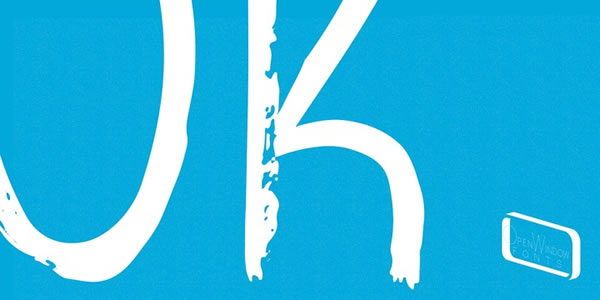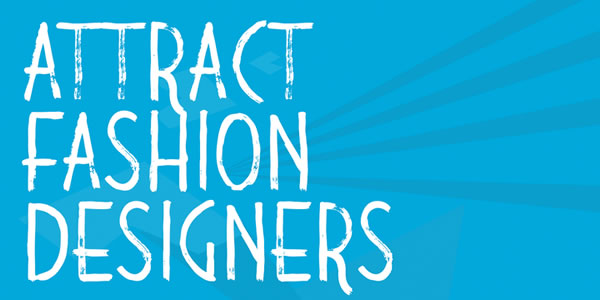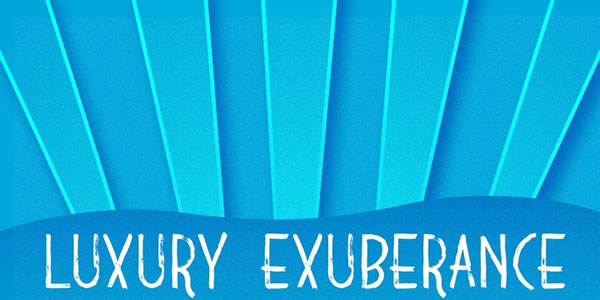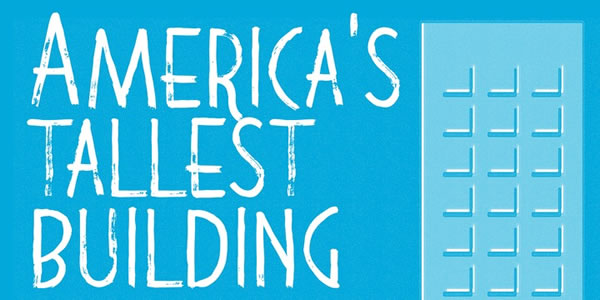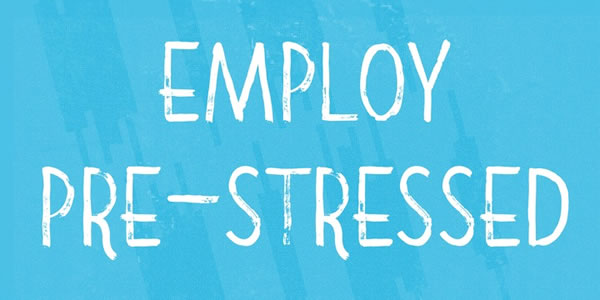
Introduction to Skyline Hotel Font Font
Fonts play a crucial role in design, and the Skyline Hotel Font font is a typeface that brings both character and versatility to any project. Whether you’re working on a branding project, a website, or a print design, the Skyline Hotel Font font offers a unique style that can elevate your work.
Skyline Hotel is a brand new hand painted font from Dathan Boardman of Open Window.
It utilizes Art Deco structures but is greatly amplified by organic paint brush strokes The font would be best used in designs that require an organic degraded look and feel.
Key Features of Skyline Hotel Font Font
Why Choose Skyline Hotel Font Font?
The Skyline Hotel Font font is more than just a typeface – it’s a design tool that helps you communicate your message with style and clarity. Its unique character set and versatile design make it suitable for a wide range of applications, from elegant invitations to bold headlines.
With its carefully crafted letterforms and balanced proportions, the Skyline Hotel Font font ensures readability and visual appeal across all mediums.
What makes Skyline Hotel Font font special?
The Skyline Hotel Font font stands out with its unique design, exceptional readability, and versatility across various design applications.